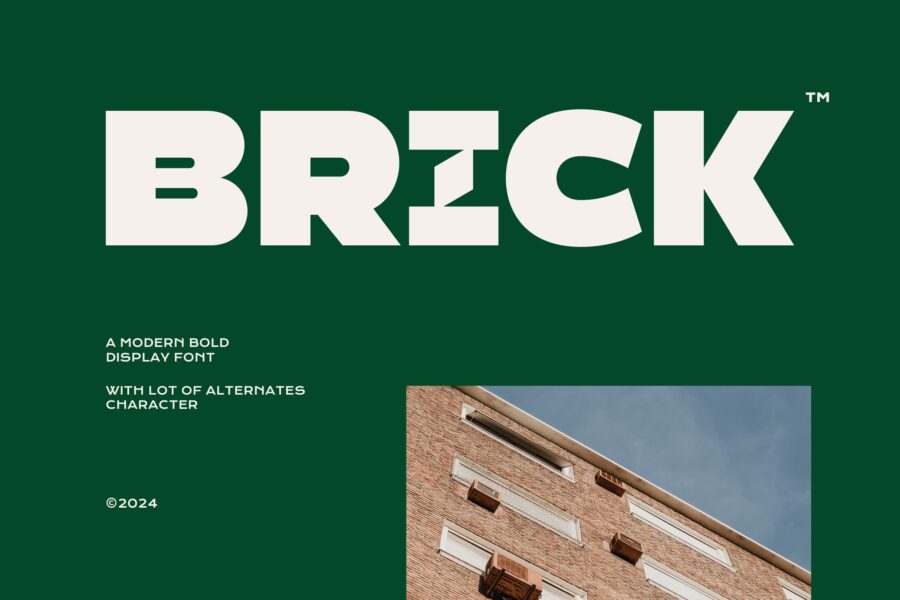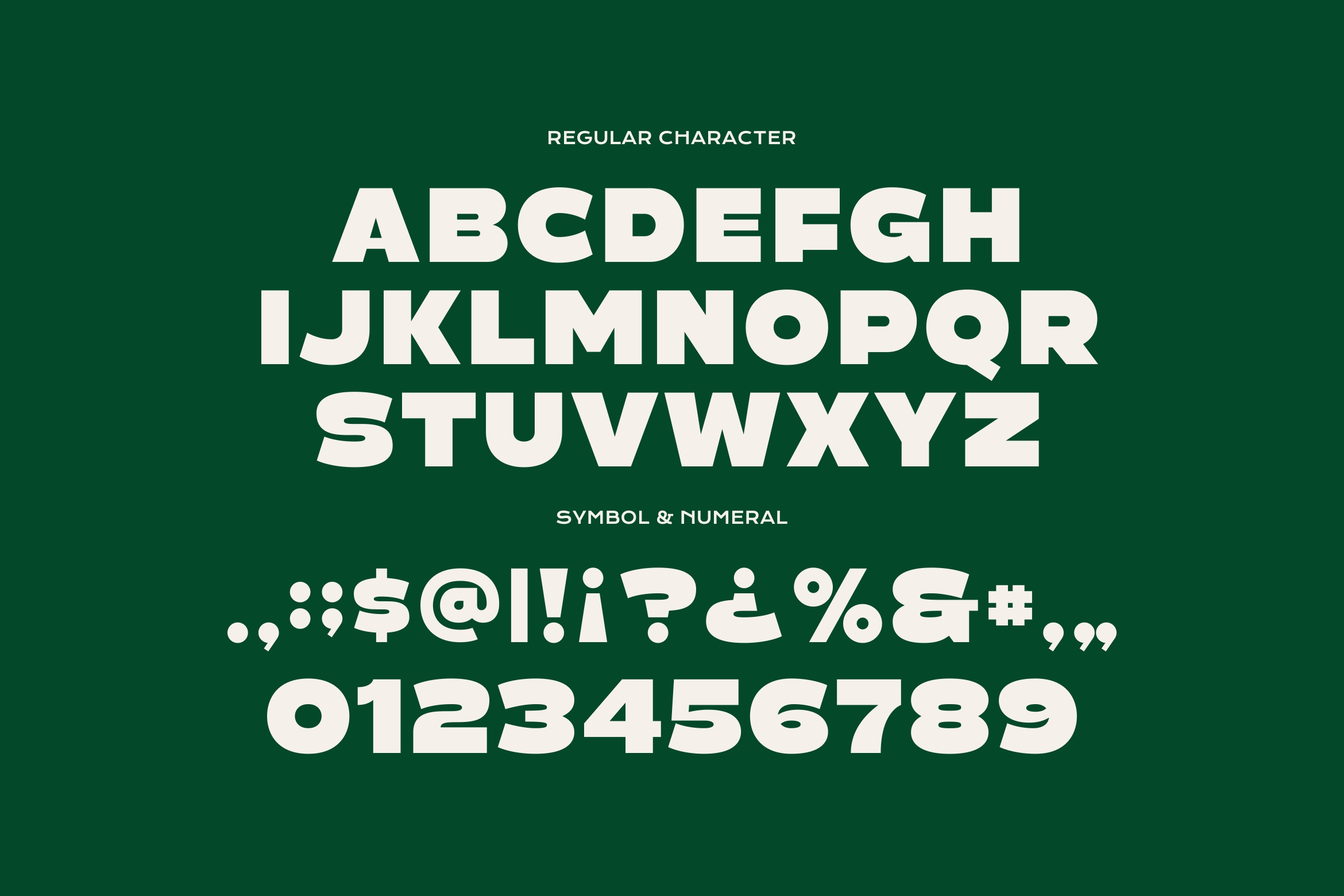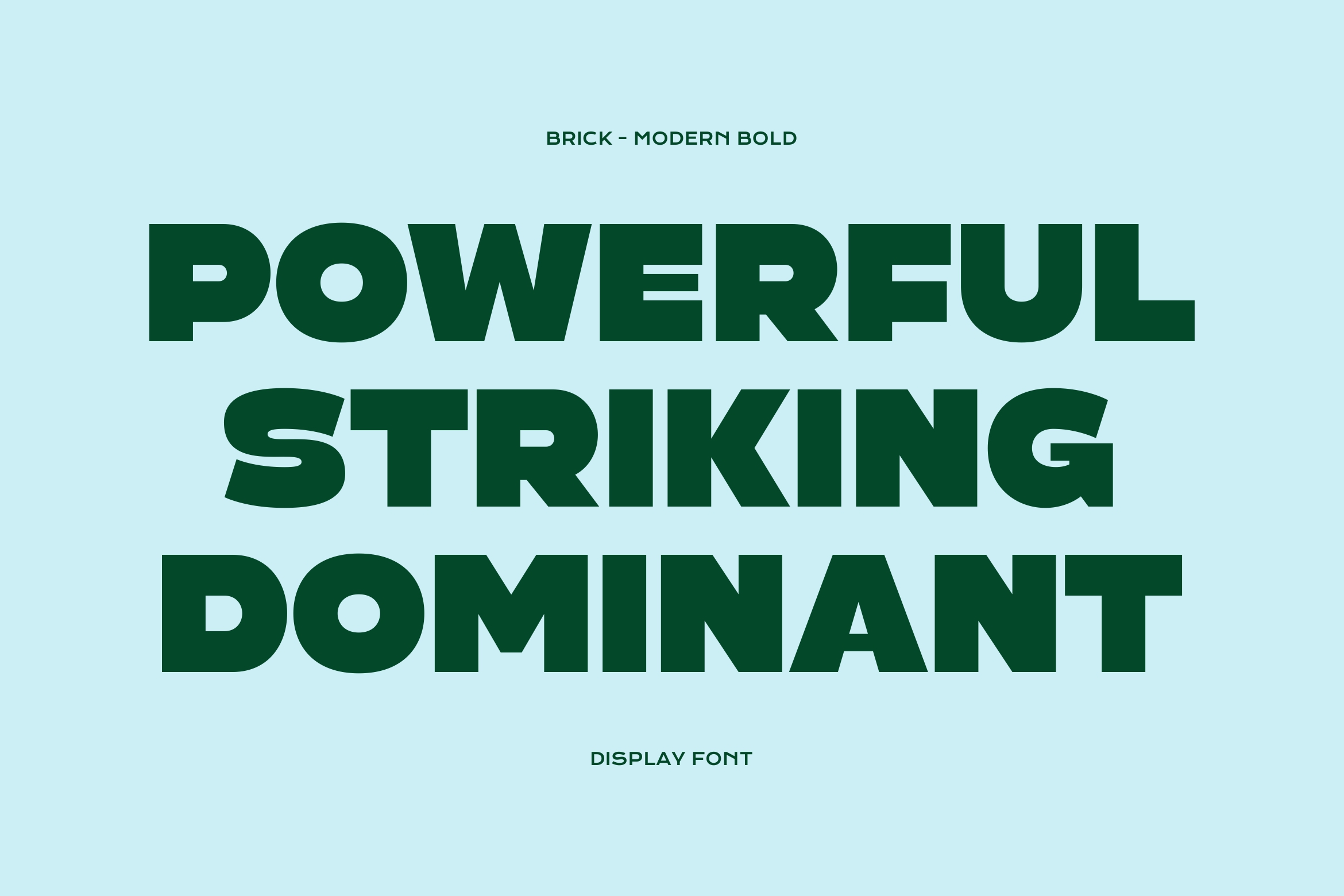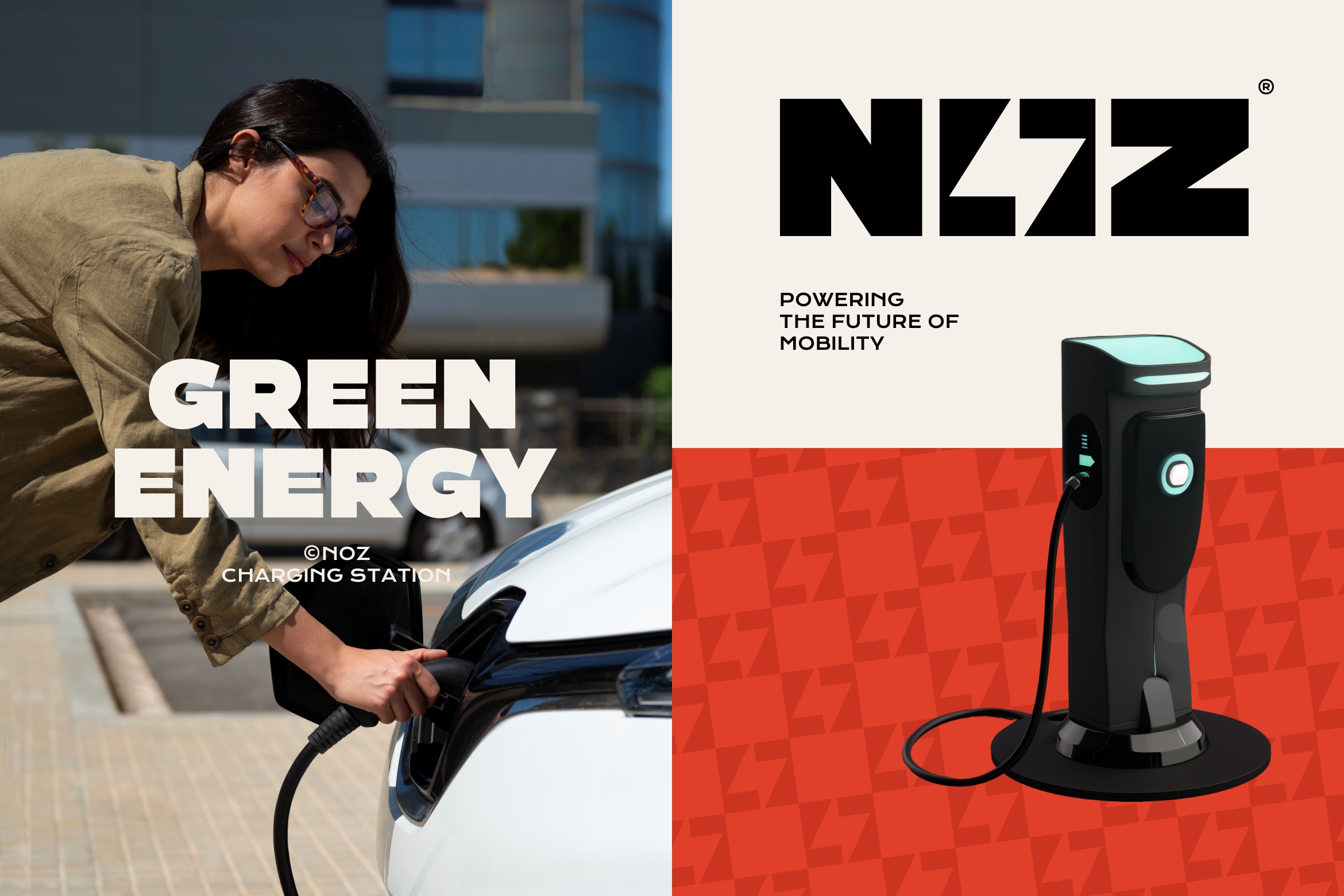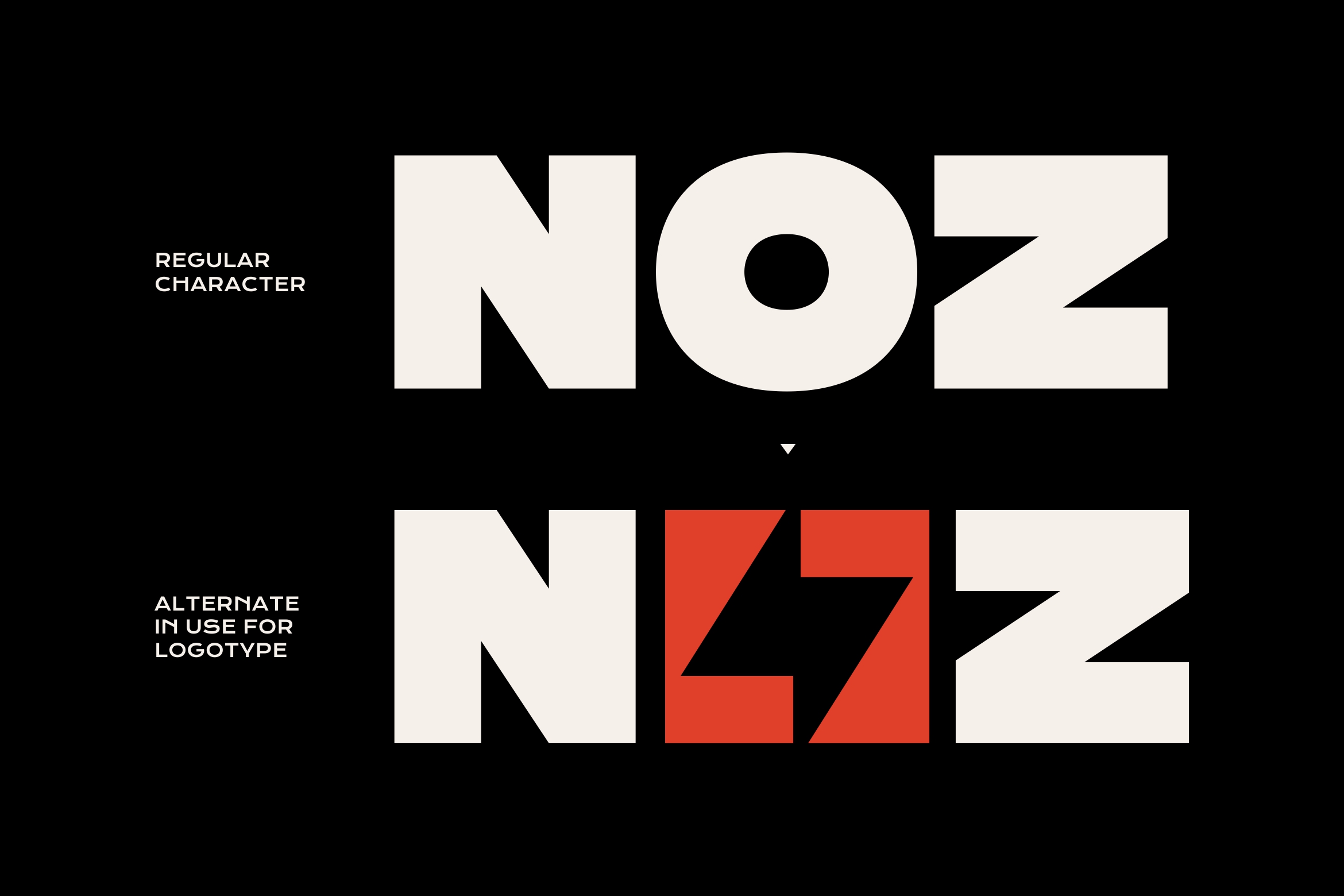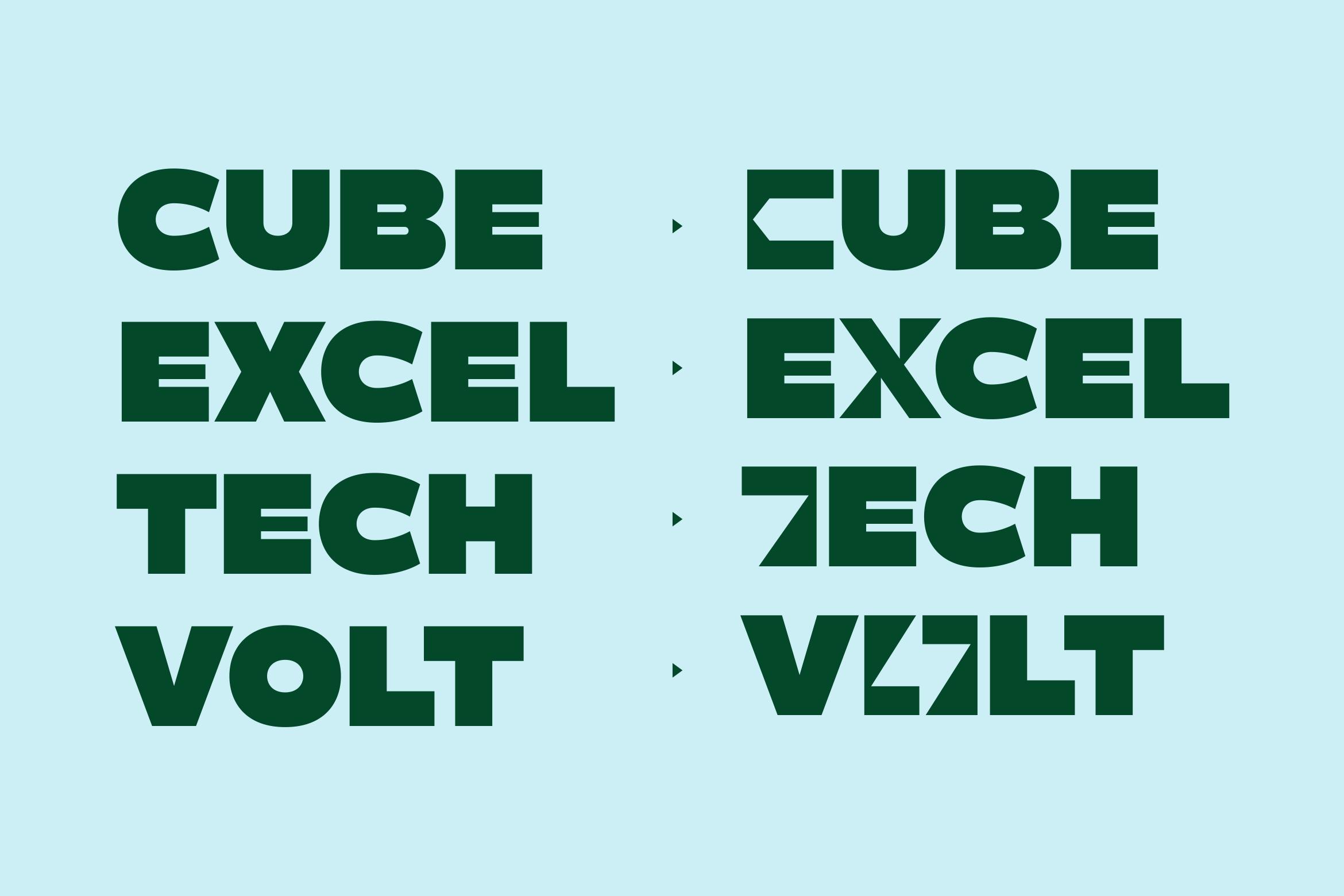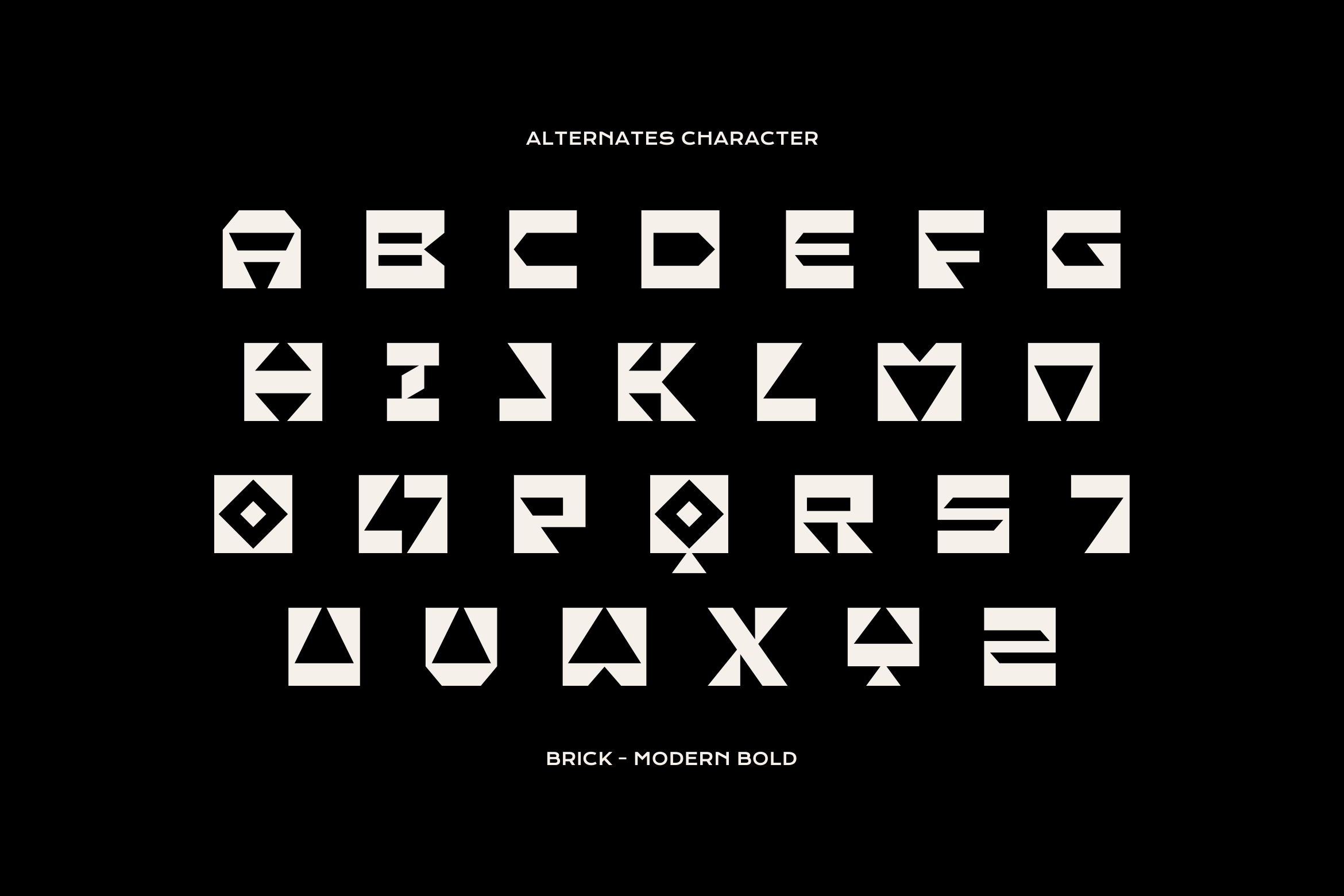
Brick
BRICK is a powerful and modern bold display typeface built with strong geometric forms and a robust presence. Designed for impactful visual identity, this typeface makes a bold statement with sharp edges, solid curves, and clean spacing. Its uppercase-focused character set is perfect for headlines, logos, posters, signage, and branding where visibility and strength are key.
What sets BRICK apart is its extensive alternate character set, offering endless variations for stylized typography and custom logotypes. Whether you’re crafting an industrial brand, tech-driven visuals, or urban-inspired creative projects, BRICK provides the dominance and clarity needed to elevate your design with confidence.
Brick